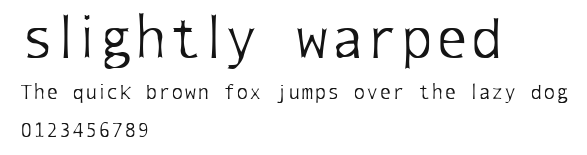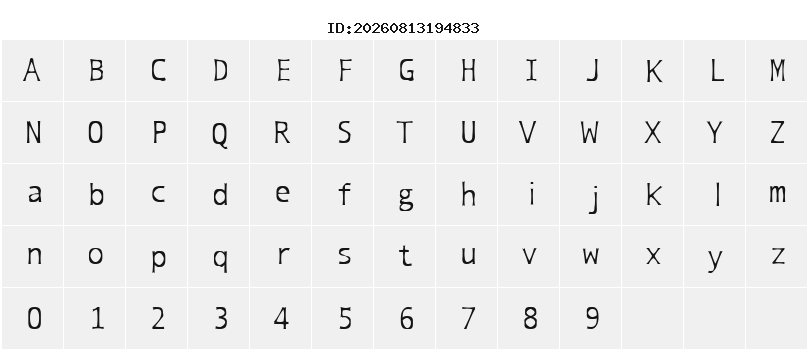
• Font Name: slightly warped
• Full Font Name: slightly warped
About slightly warped.ttf
slightly warped.ttf is a modern, elegant sans-serif font designed for ultimate readability and visual harmony. Perfect for branding, headlines, web design, and print materials.